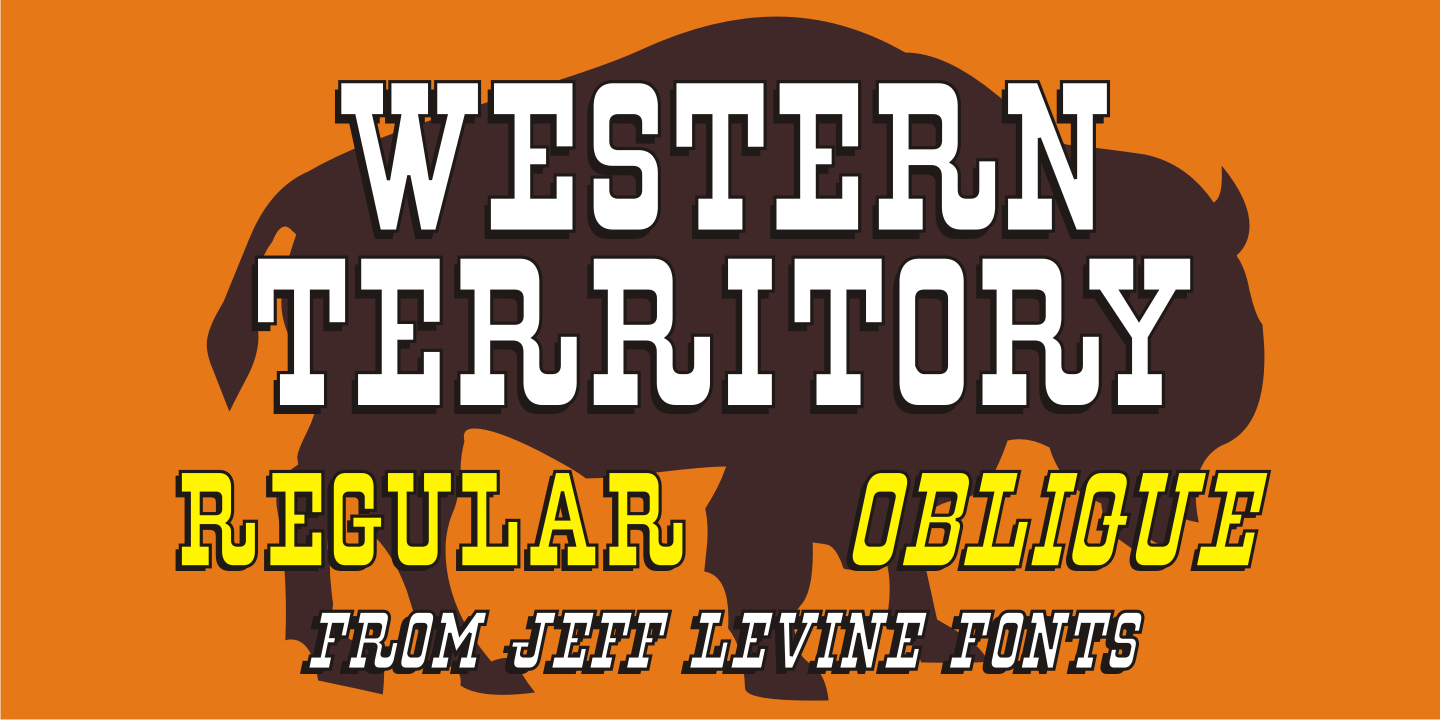
WESTERN TERRITORY JNL
Designed by Jeff Levine, Western Territory JNL is a display slab and western font family. This typeface has two styles and was published by Jeff Levine Fonts.
Browsing through images of old wood type for sale, a Western type design with some interesting character variations made the perfect subject for a digital revival.
Western Territory JNL is available in both regular and oblique versions.